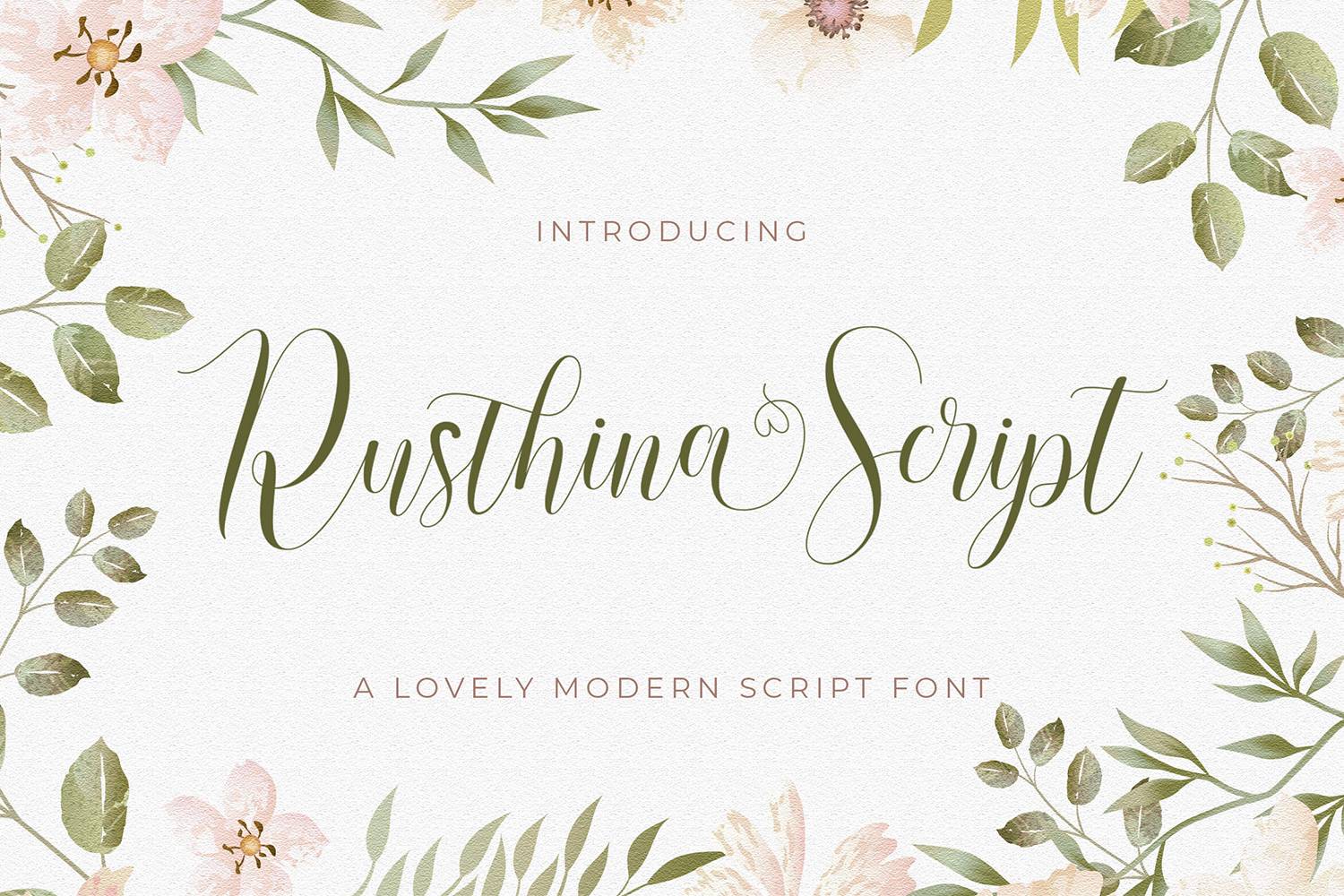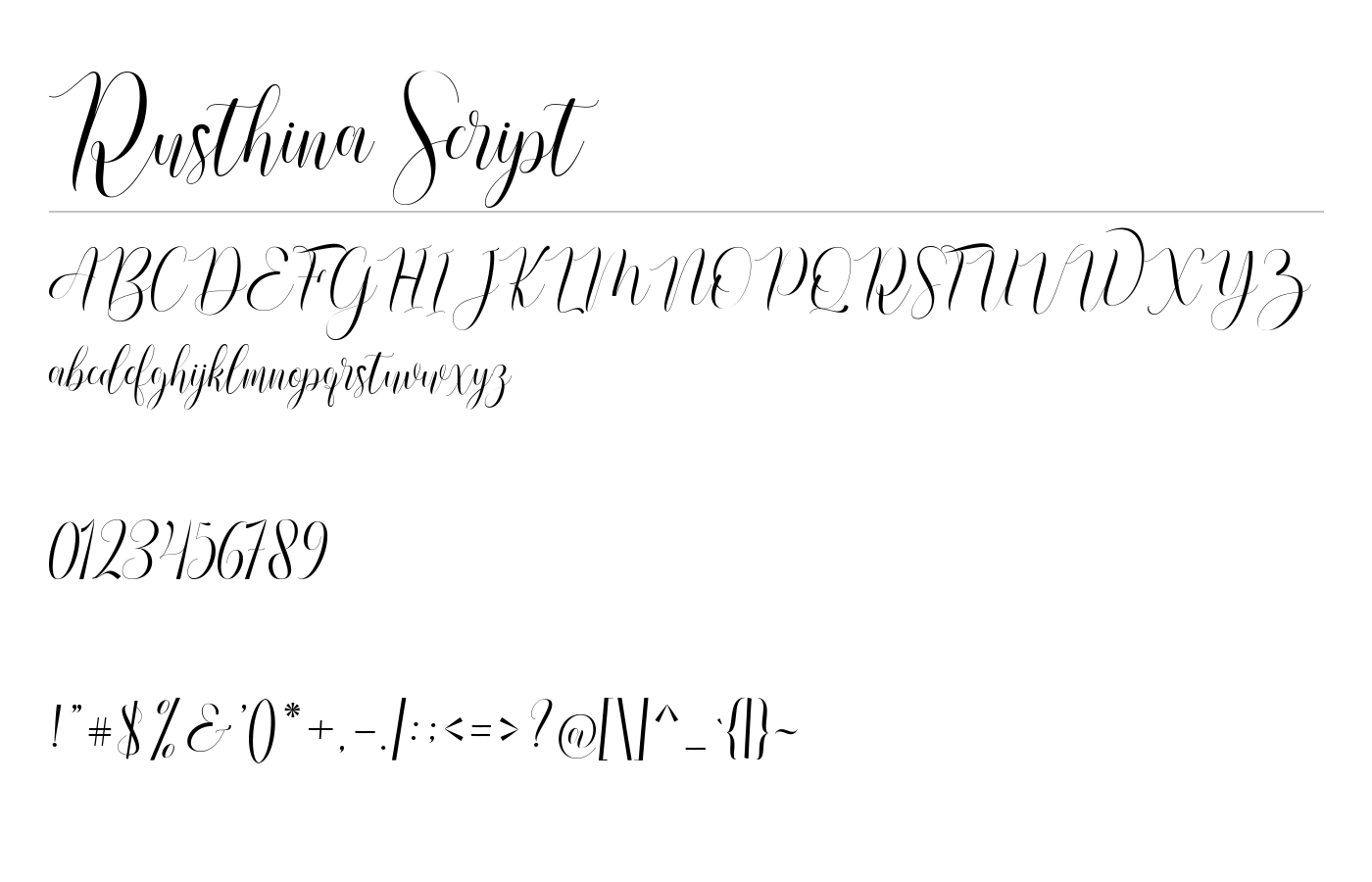
Rusthina is an elegant, high-contrast script font with delicate, flowing strokes that convey a refined, sophisticated feel. Its tall, slender letterforms with graceful swashes make it ideal for luxury branding, wedding invitations, and stylish headlines where a touch of classic charm and femininity is desired. This font works best in decorative uses rather than body text, adding a beautiful, artisanal flair to any design.
Rusthina Font